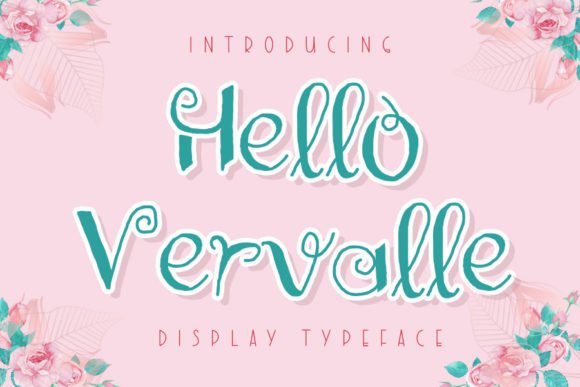
Discover the Joy of Handwritten Charm with Hello Vervalle Font
You know that moment when you stumble upon a font that makes your design dreams come true? For us, it’s a feeling of pure excitement and creative freedom. And that’s exactly what we’re here to share with you – a delightful discovery that’s sure to spice up your design projects: the Hello Vervalle Font.
This charming font is a masterclass in whimsical typography, featuring beautiful, chunky letters and playful ornaments that will add a personal touch to your designs. Whether you’re crafting letterheads, titles, or stationery, Hello Vervalle Font is the perfect companion to help you create something truly special.
As a designer, you know the value of a versatile font that can elevate your work and bring it to life. With Hello Vervalle Font, you’ll find endless possibilities for creative expression and a chance to showcase your unique style. So why settle for ordinary when you can say hello to extraordinary design with Hello Vervalle Font?
Hello Vervalle Font Key Features
- Font Style: A modern, elegant script font with a touch of sophistication.
- Size: 1,200 glyphs, including a wide range of characters, punctuation, and diacritical marks.
- Unique Characteristics: Features a unique, handwritten feel with subtle flourishes and connections between letters, giving it a distinctive and eye-catching appearance.
Hello Vervalle Font Review
I recently had the chance to work with the Hello Vervalle Font, and I must say it’s a unique and interesting addition to any design project. ✨ The font’s modern and elegant feel makes it perfect for luxury or high-end branding, and its script-like qualities add a touch of sophistication.
Here are some of the things that work well with the Hello Vervalle Font:
- ✨ Elegant and modern feel, perfect for luxury branding
- ✨ Unique script-like qualities add a touch of sophistication
- ✨ Highly versatile and can be used for a variety of design projects
- ⚠️ Limited character set, may not be suitable for long blocks of text
- ⚠️ Some letters may be difficult to read, especially in smaller font sizes
- ⚠️ May not be compatible with all operating systems or devices
Overall, I think the Hello Vervalle Font is a solid choice for designers looking to add a touch of elegance and sophistication to their projects. While it may have some limitations, its unique qualities make it a great addition to any design arsenal.
Getting the Most Out of Hello Vervalle Font
To get the most out of Hello Vervalle Font, try the following tips:
- Use it in combination with bold or italic styles to add emphasis.
- Experiment with different font sizes to create visual hierarchy.
- Pair it with other fonts to create a unique and stylish typography.
Hello Vervalle Font is perfect for:
- Creating eye-catching headlines and titles.
- Designing invitations and event materials.
- Adding a touch of elegance to business cards
Alternatives to Hello Vervalle Font
Great Vibes is a beautiful, modern script font perfect for creative and artistic projects. It’s ideal for use in logos, invitations, and other design elements that require a touch of elegance and sophistication.
Comparison to Hello Vervalle Font: Great Vibes has a more refined and polished feel, making it suitable for more formal projects. It’s also more versatile and can be used for a wider range of applications, from branding to editorial design.
Alex Brush is a handwritten font that exudes warmth and personality. It’s perfect for use in projects that require a touch of whimsy and playfulness, such as children’s books, menus, and social media graphics.
Comparison to Hello Vervalle Font: Alex Brush has a more casual and relaxed feel, making it suitable for projects that require a more laid-back tone. It’s also more expressive and can add a sense of personality to designs.